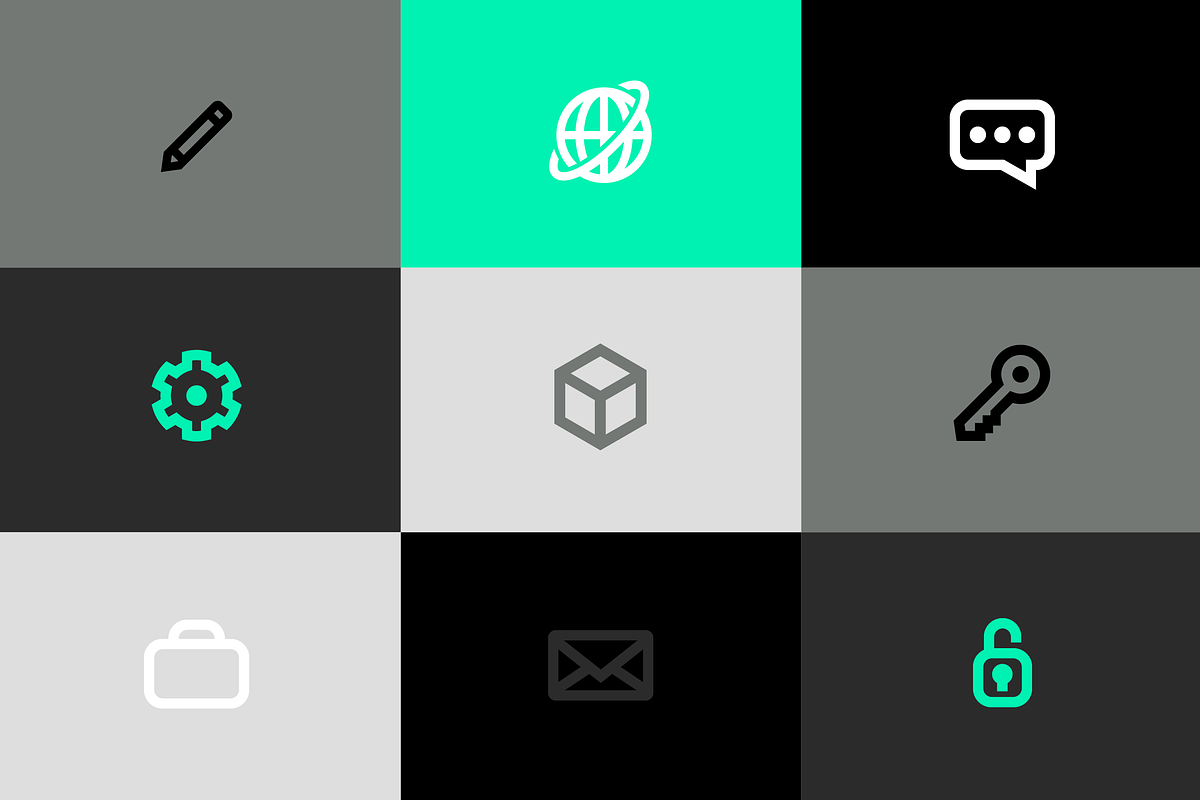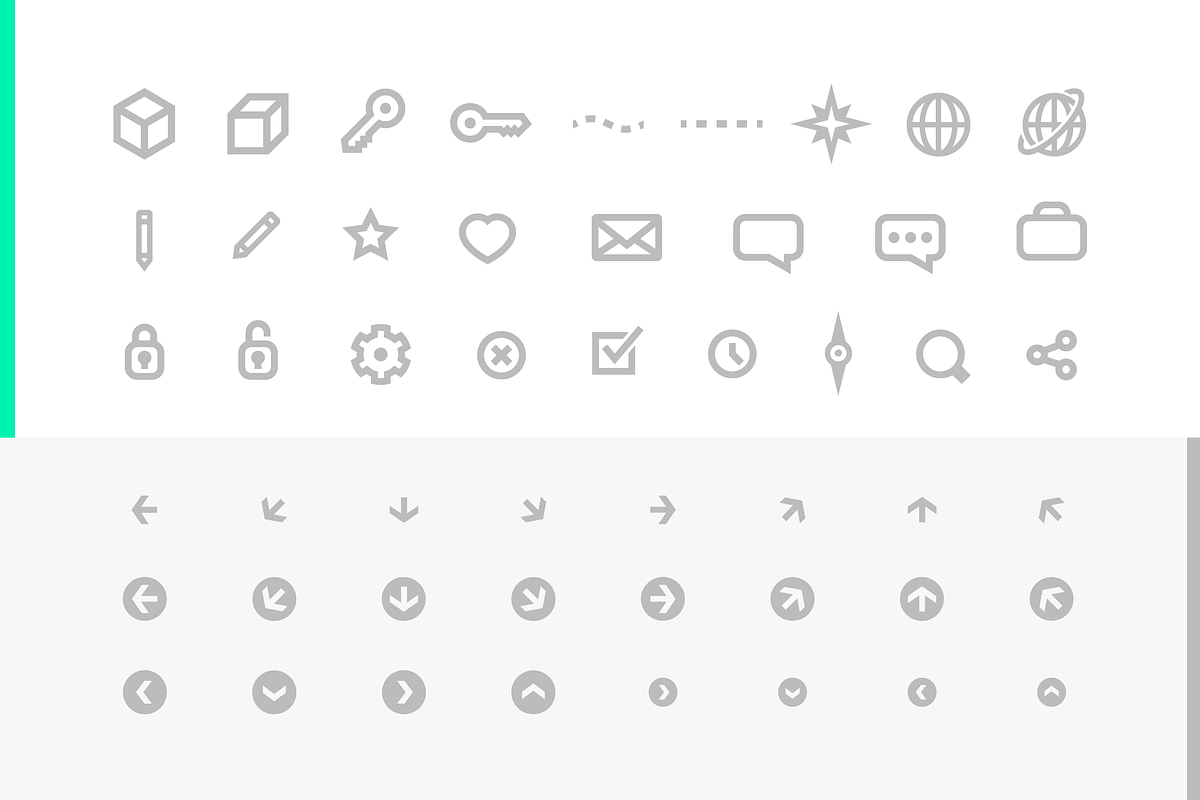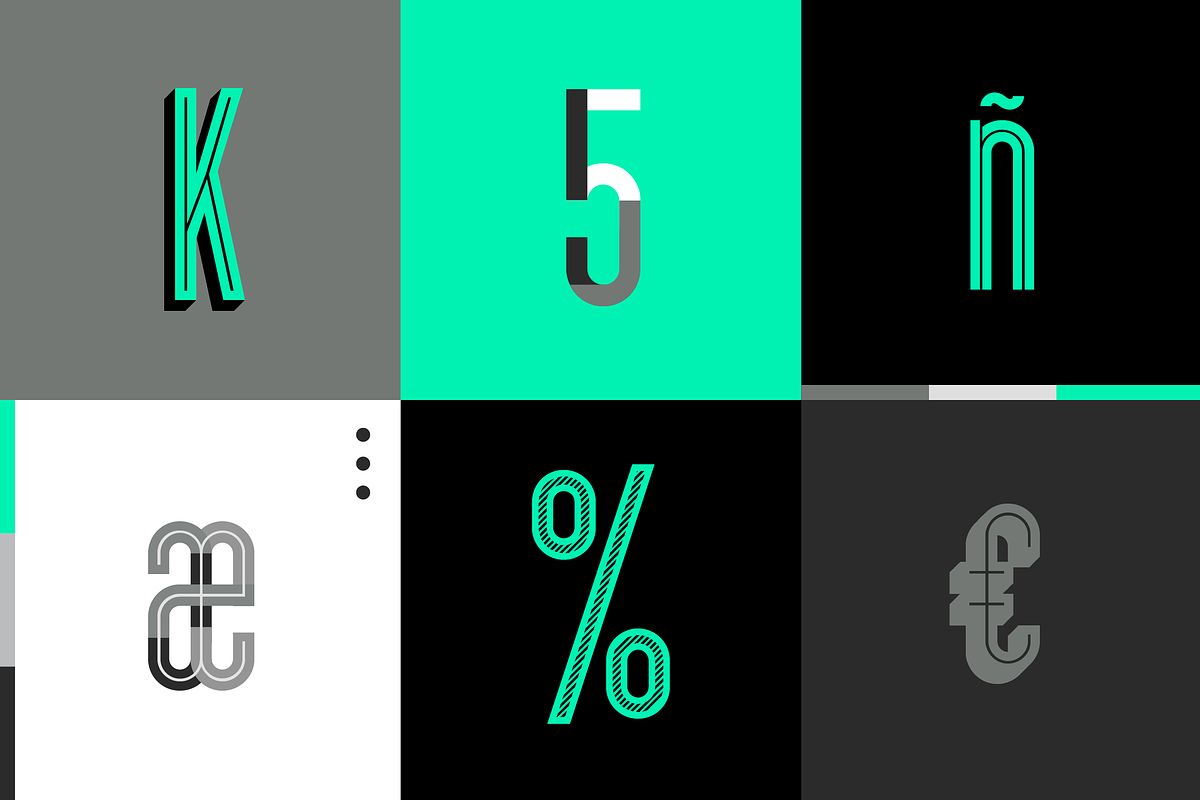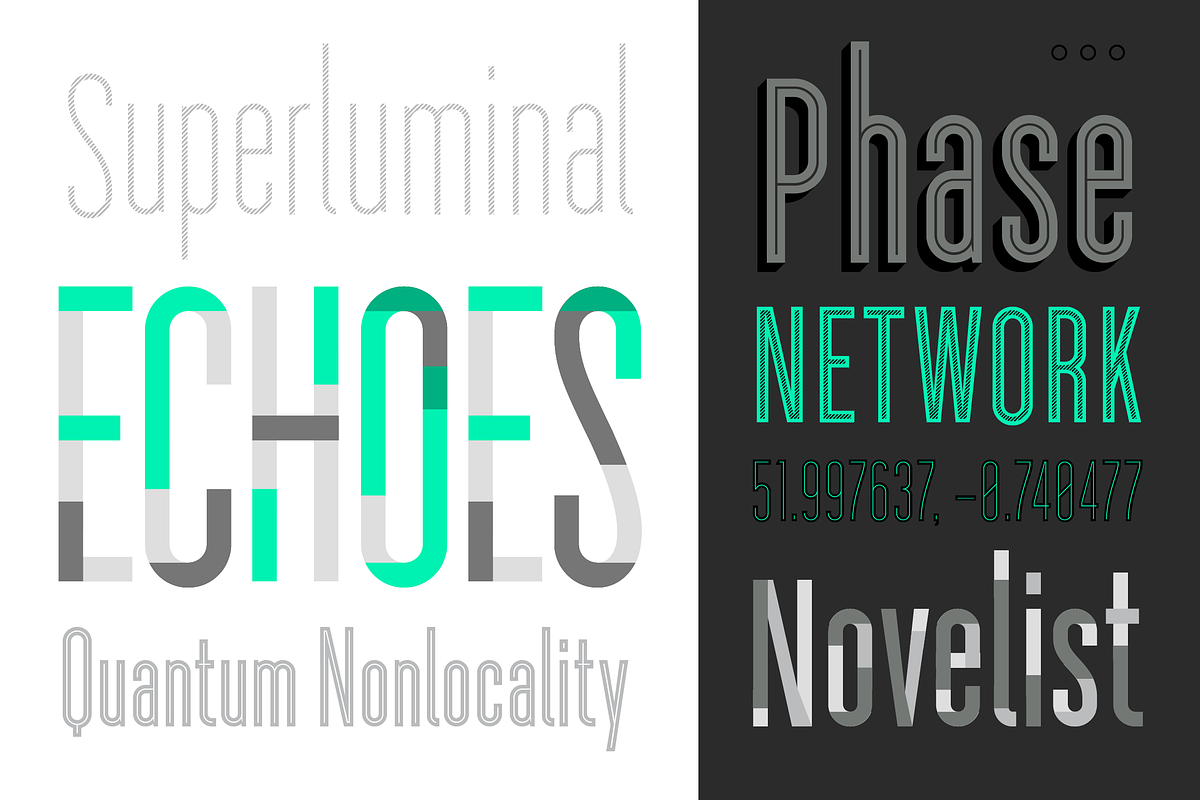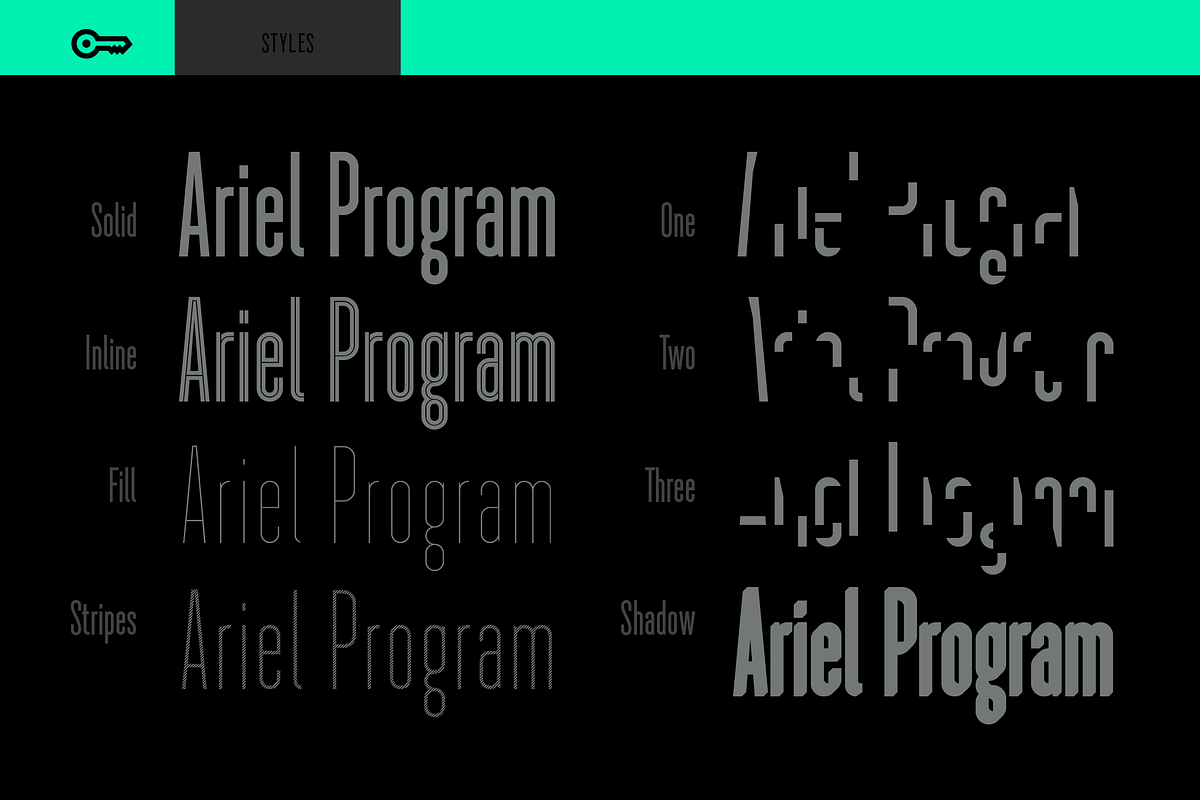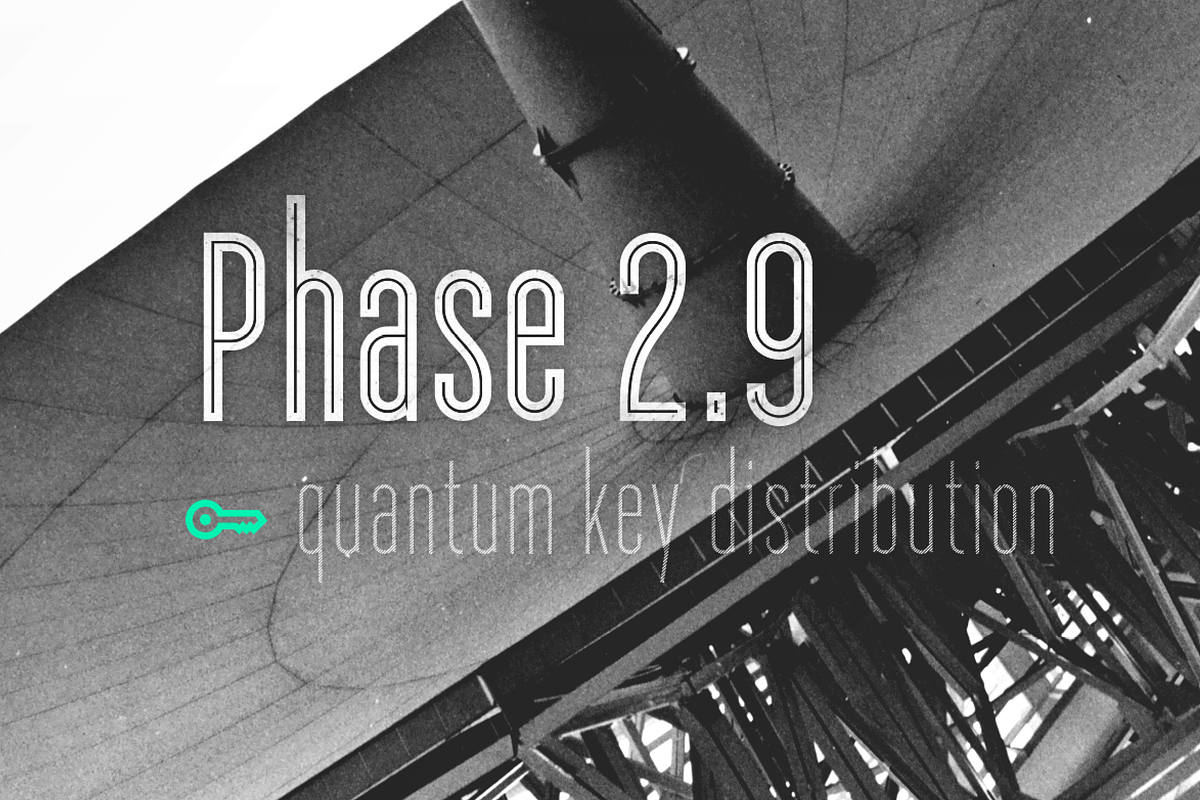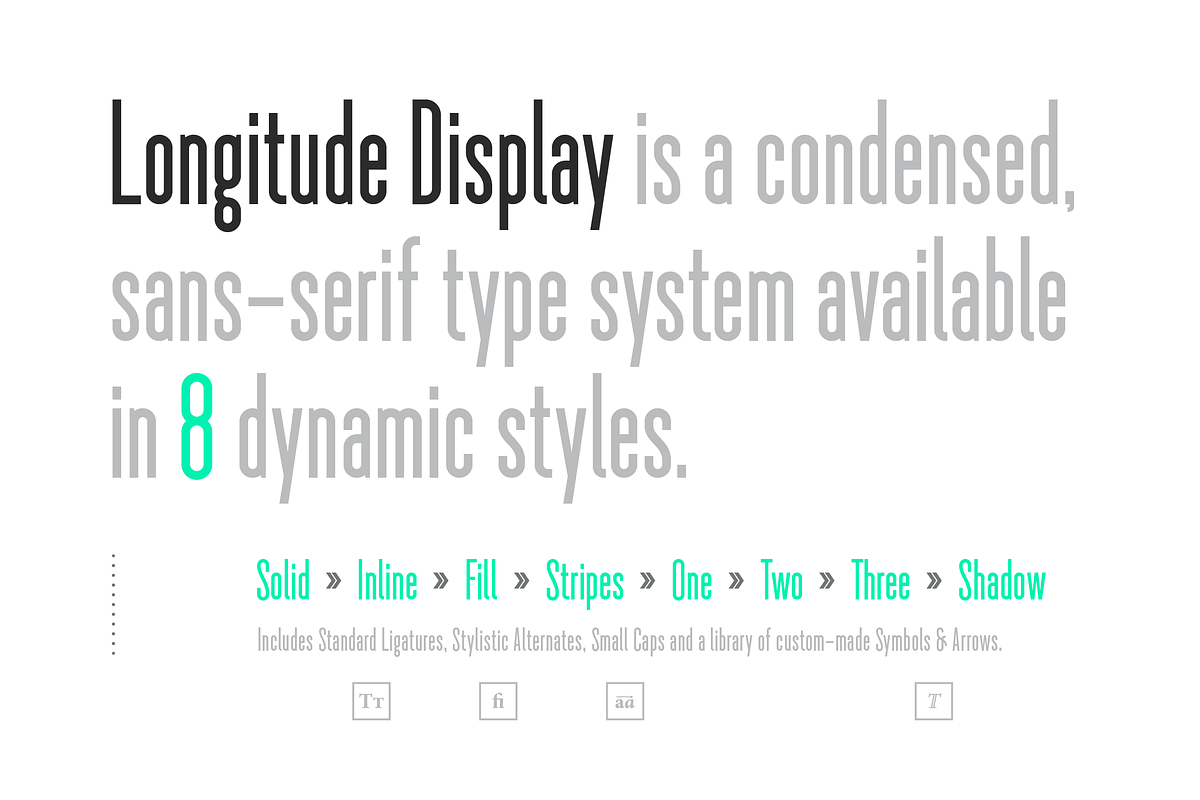
Longitude Display Font System
Longitude Display Font System by lukelisi is a font selected for branding, posters, packaging, typography.
- Solid » Inline » Fill » Stripes » One » Two » Three » Shadow Among its distinct features, Longitude Display comes with various OpenType feat
- Also, a library of symbols and arrows can be accessed through the Titling Alternate OpenType feature.
Longitude Display Font System by lukelisi fits naturally into Branding, posters, packaging, typography.